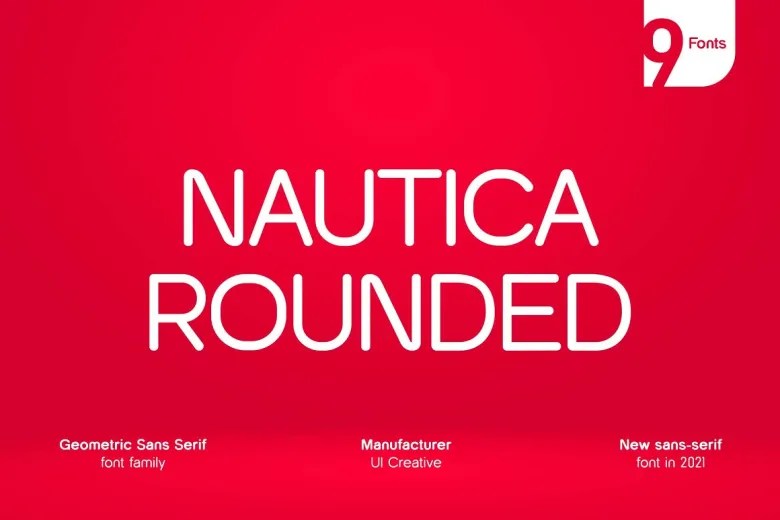
Nautica Rounded Font
Nautica Rounded is an exquisite smooth sans-serif font family characterized by its large, chunky lines and charming curves. This font exudes a friendly and approachable vibe, making it an excellent choice for a wide range of design applications.
Perfect for logos, stationery, and signature wedding invitations, Nautica Rounded adds a touch of elegance and modernity to any project. Its versatility shines through in magazine or book covers, where it can enhance typographic quotes and create engaging headers for websites. Additionally, this font works beautifully for clothing packaging design and branding, giving your materials a cohesive and stylish look.
With its smooth curves and robust character, Nautica Rounded stands out in both digital and print formats. This makes it ideal for designers seeking a contemporary font that maintains legibility while providing a warm and inviting aesthetic.